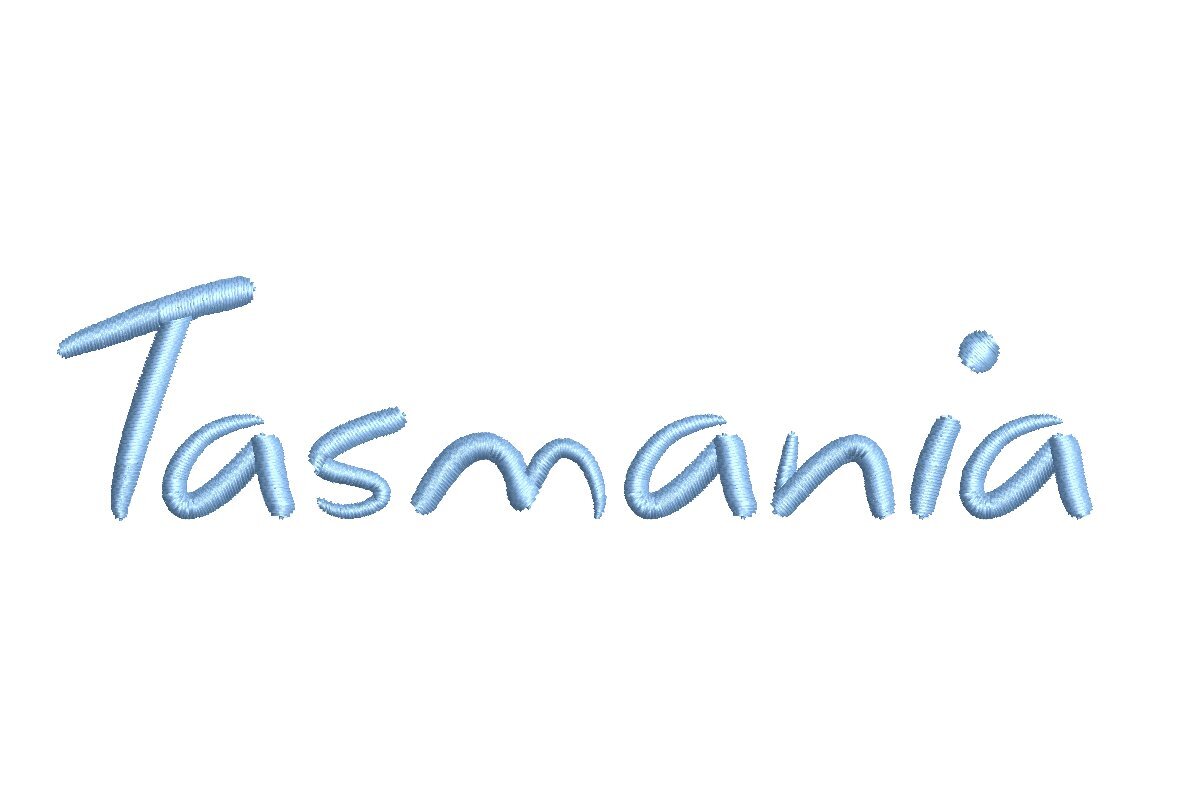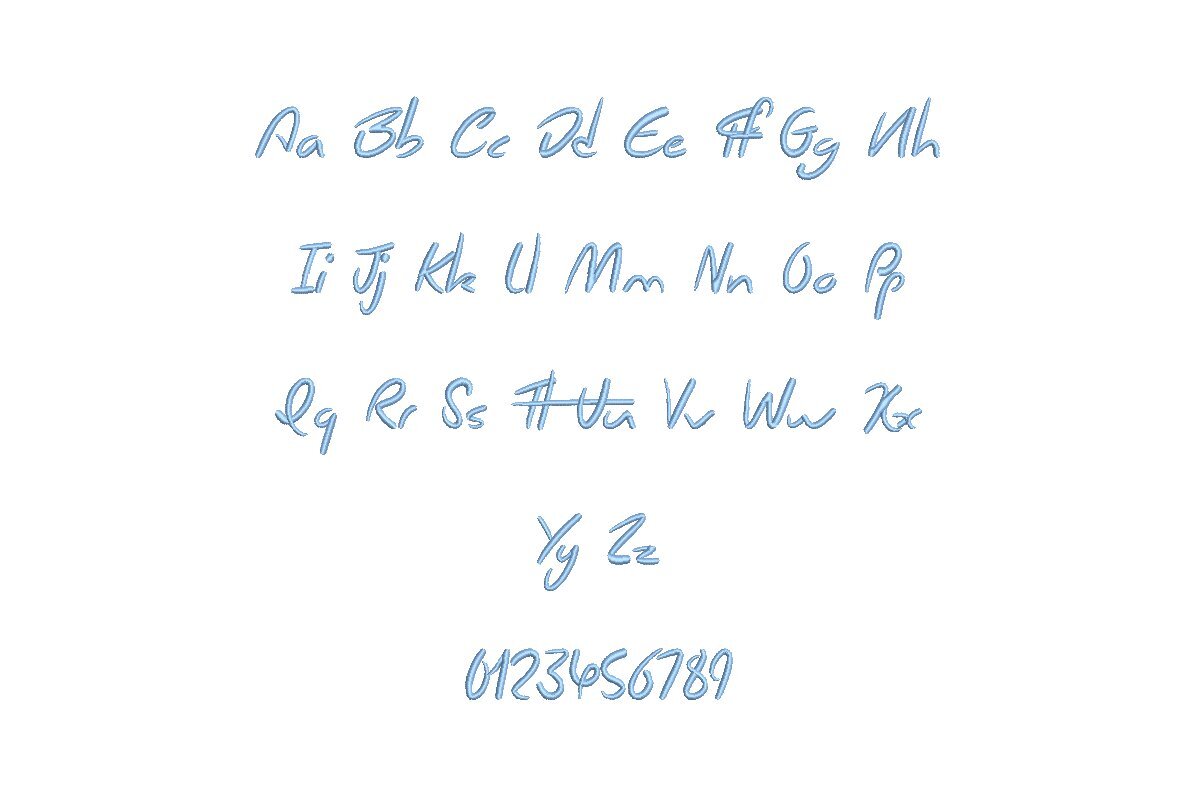
Tasmania ESA Font
Introducing Tasmania ESA Font - Your Gateway to Wilderness-Inspired Embroidery! Designed for seamless compatibility with Wilcom Studio e4.5.6 and Hatch 3 versions and beyond, this font is your passport to crafting nature-inspired embroidery designs. Its rustic, earthy design adds a touch of the great outdoors to your projects, ensuring they stand out with natural beauty. Achieve professional-quality embroidery with ease, thanks to this user-friendly digitized font, promising precision in every stitch. Immerse yourself in a world of boundless creative possibilities with Tasmania ESA Font and elevate your Wilcom Studio and Hatch software. Choose the wilderness over the ordinary - upgrade today for an extraordinary embroidery journey. Your designs deserve the untamed beauty of Tasmania.